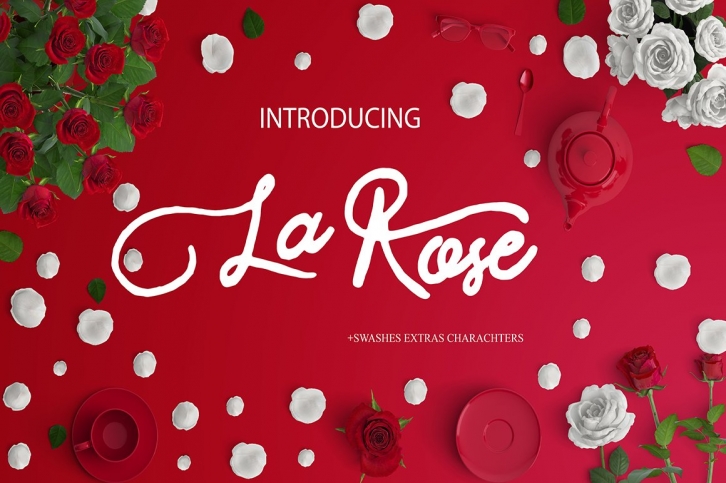
single thickness, perfect handwriting
Ornaments of all uppercase letters
Ornaments of all lowercase letters.
In addition, the construction of logo, magazine covers, you can use any case you want to sign in and print.
Font typography in a consistent fashion. You can create your logo, your own brand.
You want an invitation letter for special occasions can be seen perfectly.
As stated in the presentation of a beautiful cover of the book cover can be created.
When opening your new sign in a café, a shop opening modification you want to make your beautiful handwriting appealing to the eye lid on the product you want to promote.